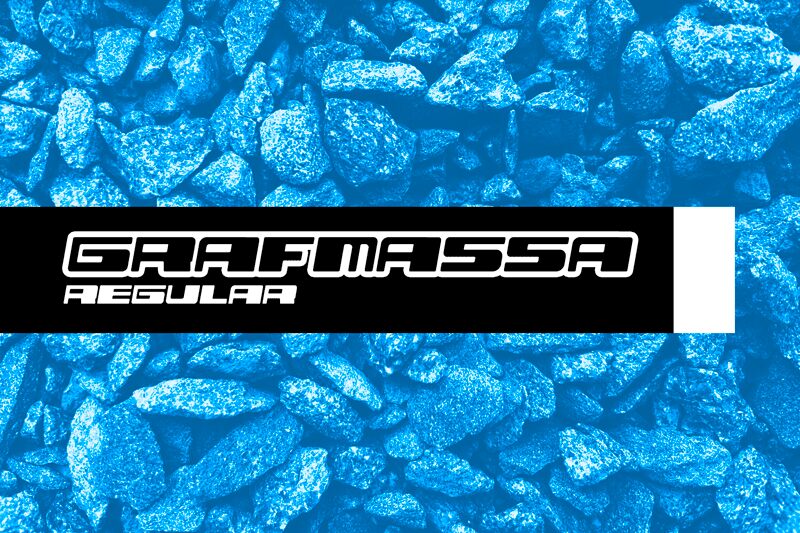
Grafmassa font, crafted by Wladyslaw Borisoff, is a free techno-style typeface with a touch of modern sleekness and futuristic flair. Geometric and smooth, its streamlined design translates a visual dynamic, giving your text a digital aesthetic with energetic vibes. This beautifully put-together font is the ultimate addition to your resources library for all modernity-inspired projects.
Grafmassa futuristic, techno font is suitable for branding, logo design, signage, headlines, editorial design, websites, product packaging, labels, posters, album covers, book covers, and much more possible applicable uses.